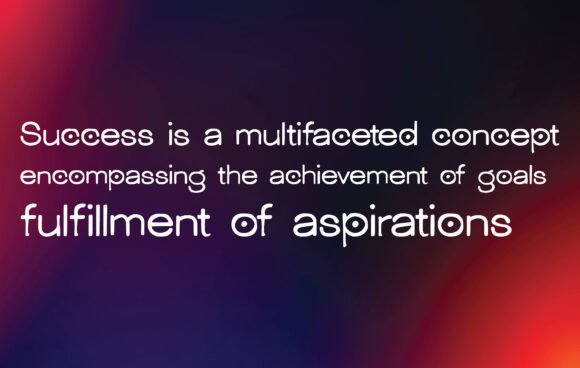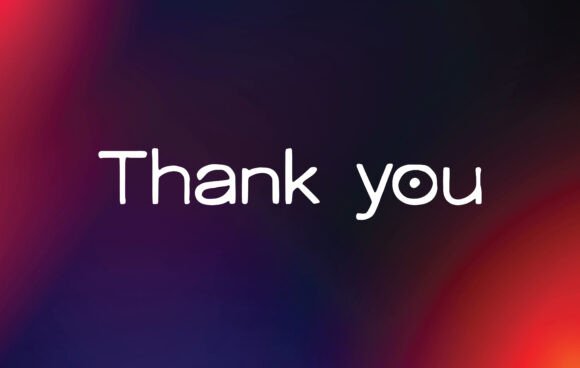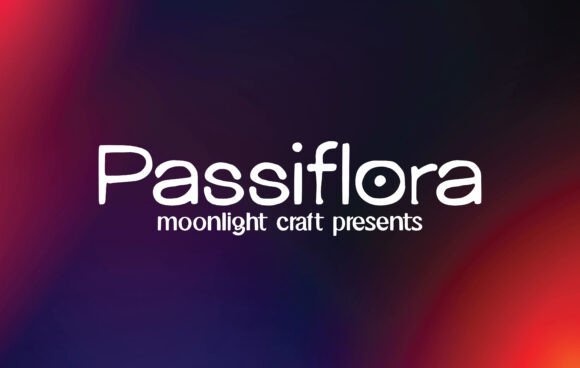
Introduction to Passiflora Font
This font is crafted to become a go-to favorite in your collection, offering the perfect blend of style and versatility to elevate any creative project.
It’s easy to read and works beautifully for both titles and body text Whether you’re designing magazine headlines, t-shirts, social media posts, branding materials, wedding invitations, or greeting cardsβ€”this font fits right in.
Key Features of Passiflora Font
Why Choose Passiflora Font?
Passiflora Font offers exceptional quality and versatility, making it a valuable addition to your design toolkit. Whether you’re creating for personal projects or commercial use, Passiflora Font delivers professional results.